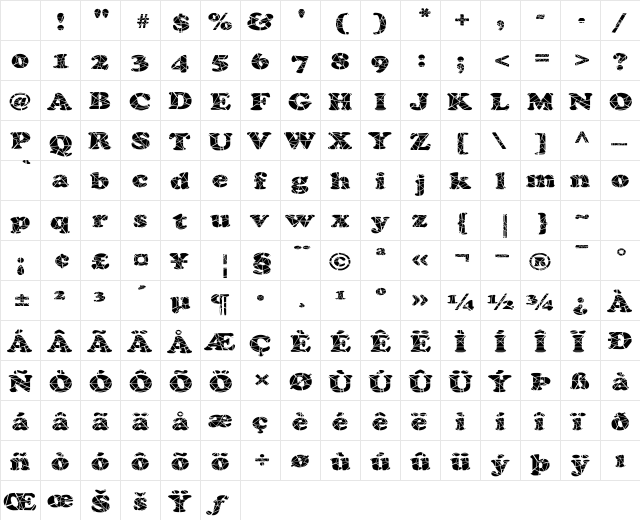
Marshmallow-Cracked-Extended Normal
Marshmallow-Cracked-Extended Family
Marshmallow-Cracked-Extended Normal
Marshmallow-Cracked-Extended Normal Font Preview
Marshmallow-Cracked-Extended Normal Uppercase Preview
Marshmallow-Cracked-Extended Normal Lowercase Preview
Marshmallow-Cracked-Extended Normal Numeric Preview
Marshmallow-Cracked-Extended Normal Character Map
Complete Marshmallow-Cracked-Extended Normal glyph index. Displaying only characters natively supported by Marshmallow-Cracked-Extended Normal font.
Marshmallow-Cracked-Extended Normal Character Map
Design Context for Marshmallow-Cracked-Extended
Marshmallow-Cracked-Extended is a composed and adaptable typeface that performs quietly and consistently across a wide range of design contexts.